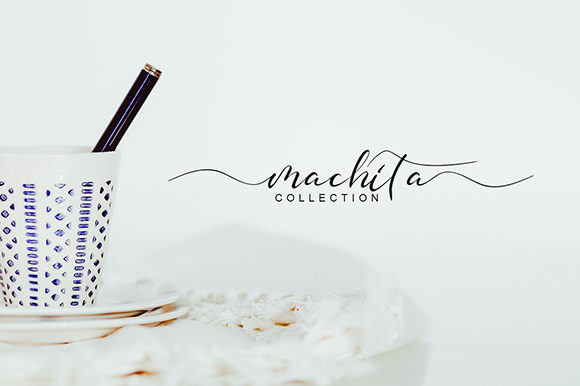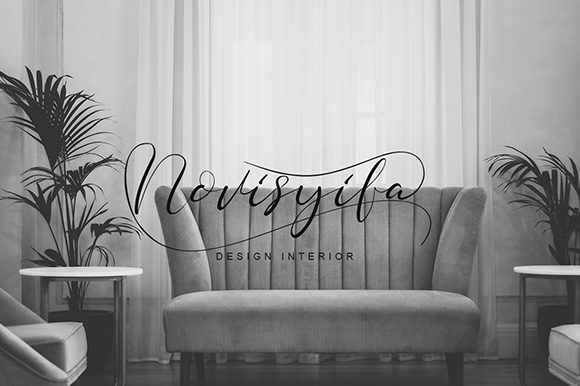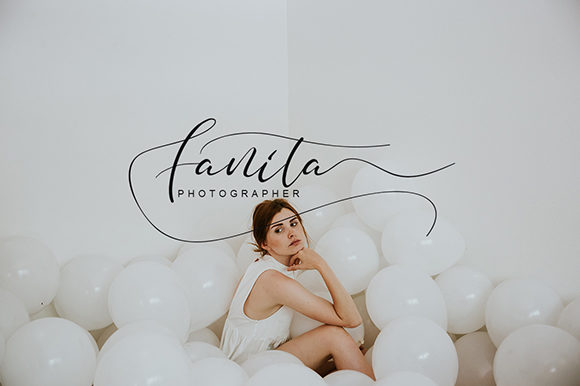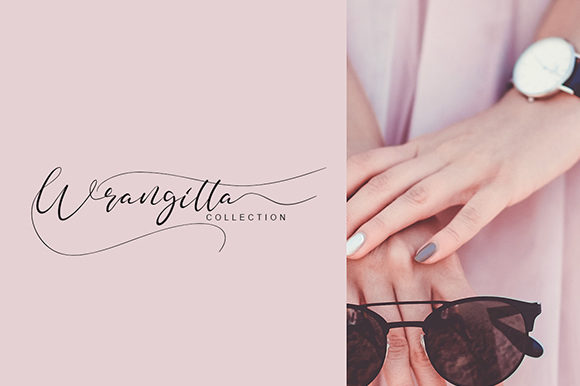
Unleash Your Creativity with the Perfect Font
Have you ever been working on a project, pouring your heart and soul into it, and then, suddenly, you need that one final touch to make it truly stand out? That’s where the magic happens – and for many designers, that magic comes in the form of the perfect font.
Meet Calia Macitta Font, a stunningly rich and elegant handwritten font that adds a bold, eye-catching feel to any creative project. With its unique blend of sophistication and playfulness, Calia Macitta Font is the perfect choice for designers looking to elevate their work and make it truly unforgettable. Whether you’re working on a branding project, a poster, or a social media campaign, this font is sure to bring your vision to life in a way that captivates and inspires.
Calia Macitta Font Key Features
- Unique Characteristics: A beautiful, elegant script font with a vintage touch, ideal for creating beautiful invitations, quotes, and other decorative text.
- Language Support: Multilingual support, including Latin-based languages and Cyrillic.
Calia Macitta Font Review
As a designer, I was excited to try out the Calia Macitta Font. Here’s my honest review.
One thing that stands out about Calia Macitta is its elegant, sophisticated look. It’s perfect for high-end branding, luxury goods, or any project where you want to convey a sense of refinement. The font’s clean lines, subtle curves, and beautiful letterforms make it a joy to work with.
Another advantage is its versatility. Calia Macitta comes in a range of weights and styles, from light to bold, and even script versions. This makes it easy to use in different contexts and applications.
- Calia Macitta may be too formal for some projects, and its elegance can come across as stuffy or pretentious if not used carefully.
- The font’s simplicity can also make it feel a bit generic or unoriginal, especially in crowded markets.
Overall, I think Calia Macitta is a solid choice for designers who want to create high-end, sophisticated branding or typography. While it may have some limitations, its elegant look and versatility make it a great addition to any designer’s toolkit.
- Use the font’s features, such as ligatures and swashes, to enhance the design.
Calia Macitta Font is ideal for:
- Anniversary and birthday celebrations
- Wedding and event signage
For optimal results, pair the Calia Macitta Font with elegant graphics and soft colors to create a romantic and whimsical atmosphere.
Project Ideas Using Calia Macitta Font
Create a unique and eye-catching wedding invitation that sets the tone for a whimsical and romantic celebration. The Calia Macitta Font is perfect for adding a touch of elegance and sophistication to your design.